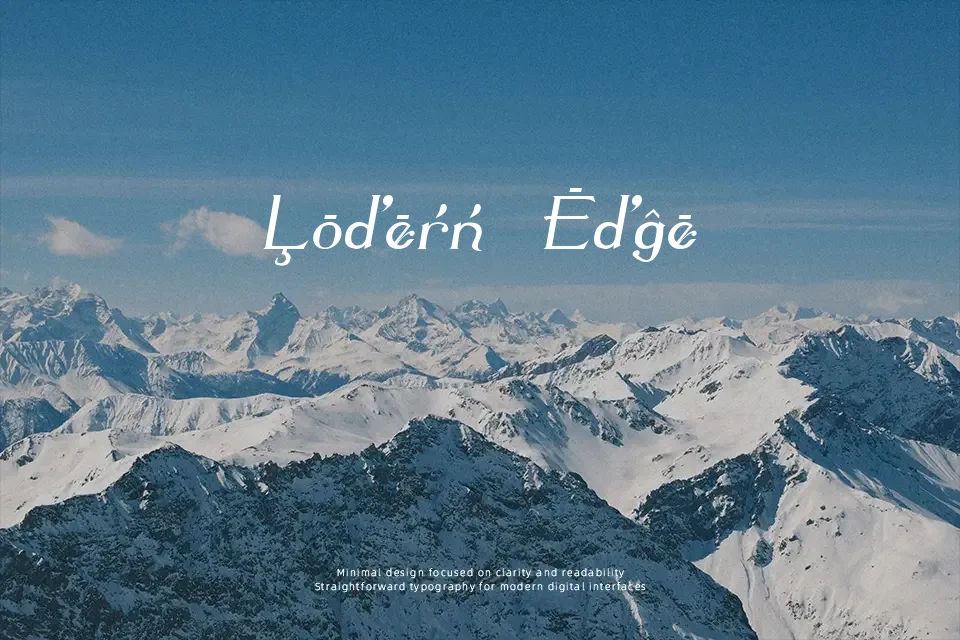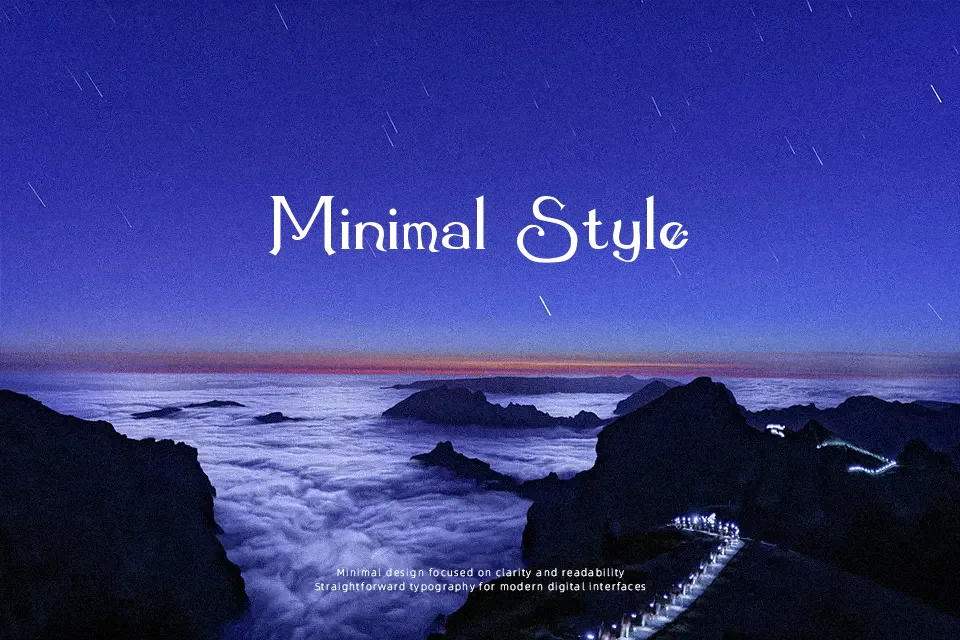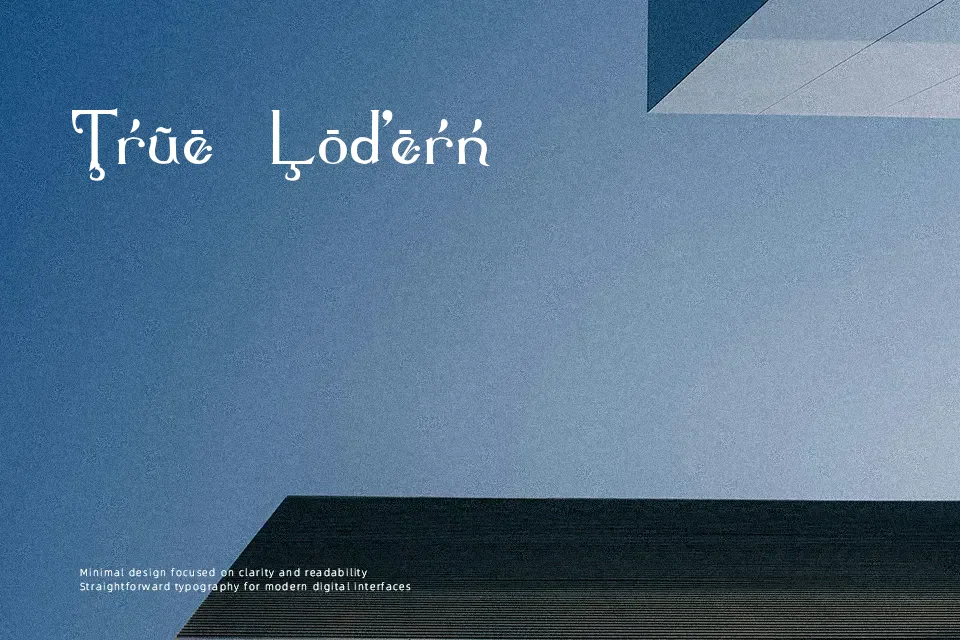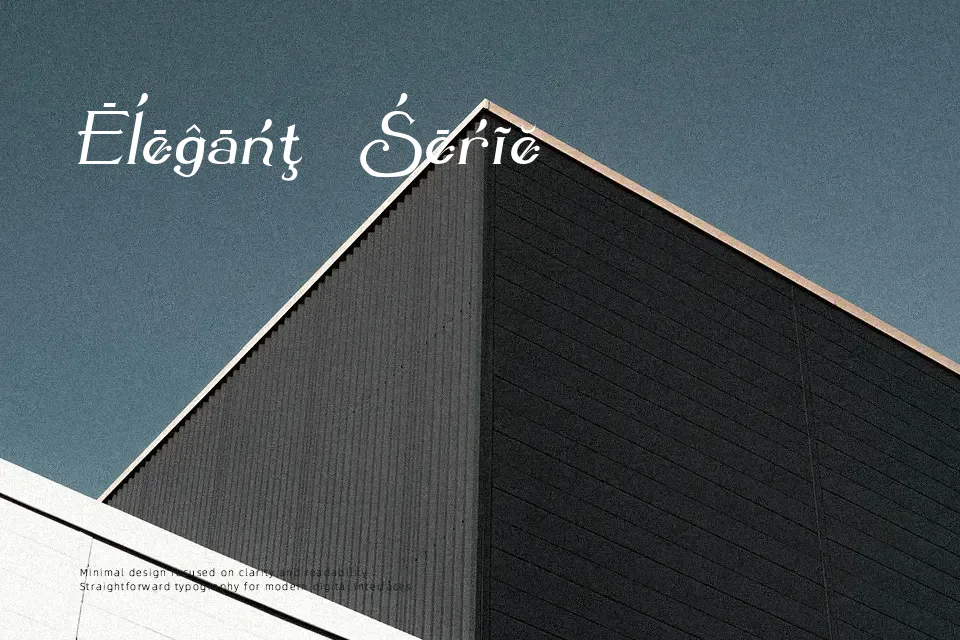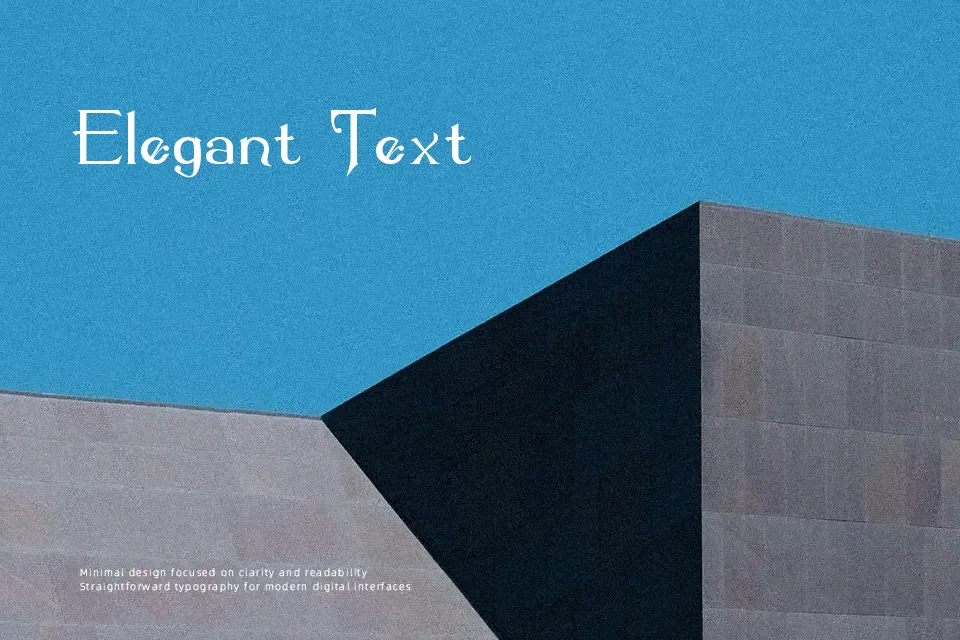
Summertime Font
Summertime Font uses rounded, decorative letterforms with pronounced curves, uneven visual weight, and a distinctly retro display character. The capitals and lowercase forms share a soft, expressive construction, while the generous internal spaces keep individual characters recognizable in large words. Its proportions and ornamental stroke endings give headlines a lively, period-inspired rhythm rather than a neutral reading texture. The font works most convincingly in short titles, labels, and identity work where its shapes have room to stand apart. The spacing helps preserve clarity in larger display settings, but the decorative details become harder to follow in small captions or continuous text.
Best For: retro product packaging,poster headlines,playful logo designs,vintage event flyers
Perfect for headline, logo, and packaging, with a creative and decorative style.